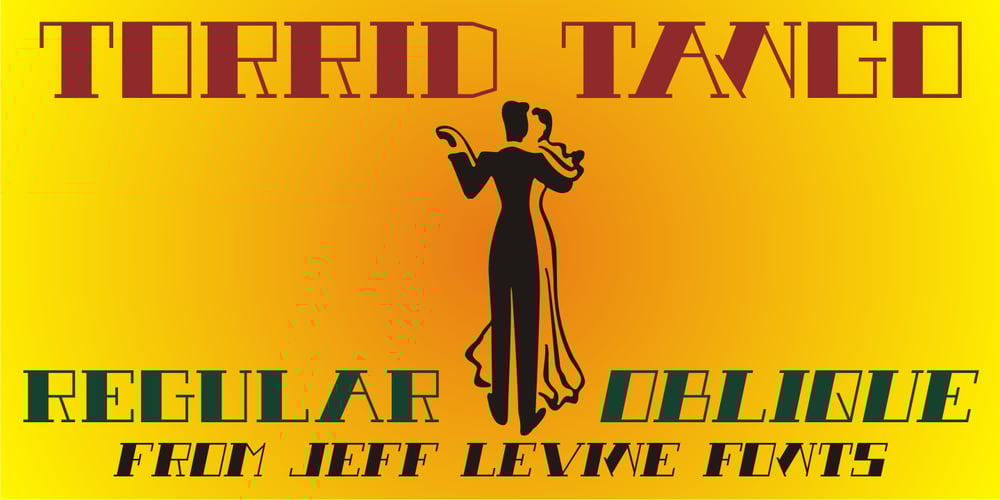
Torrid Tango JNL Font Family was designed by Jeff Levine and published by Jeff Levine. Torrid Tango JNL contains 2 styles and family package options. 1920s-era sheet music for “Tangos Pour Manon” from Brussels, Belgium had the title hand lettered in an unusual style. The alphabet was square, had serifs and the thick-and-thin stroke weights that were more popular in the upcoming Art Deco years of the 1930s and 1940s. This became the working model for Torrid Tango JNL, which is available in both regular and oblique versions.